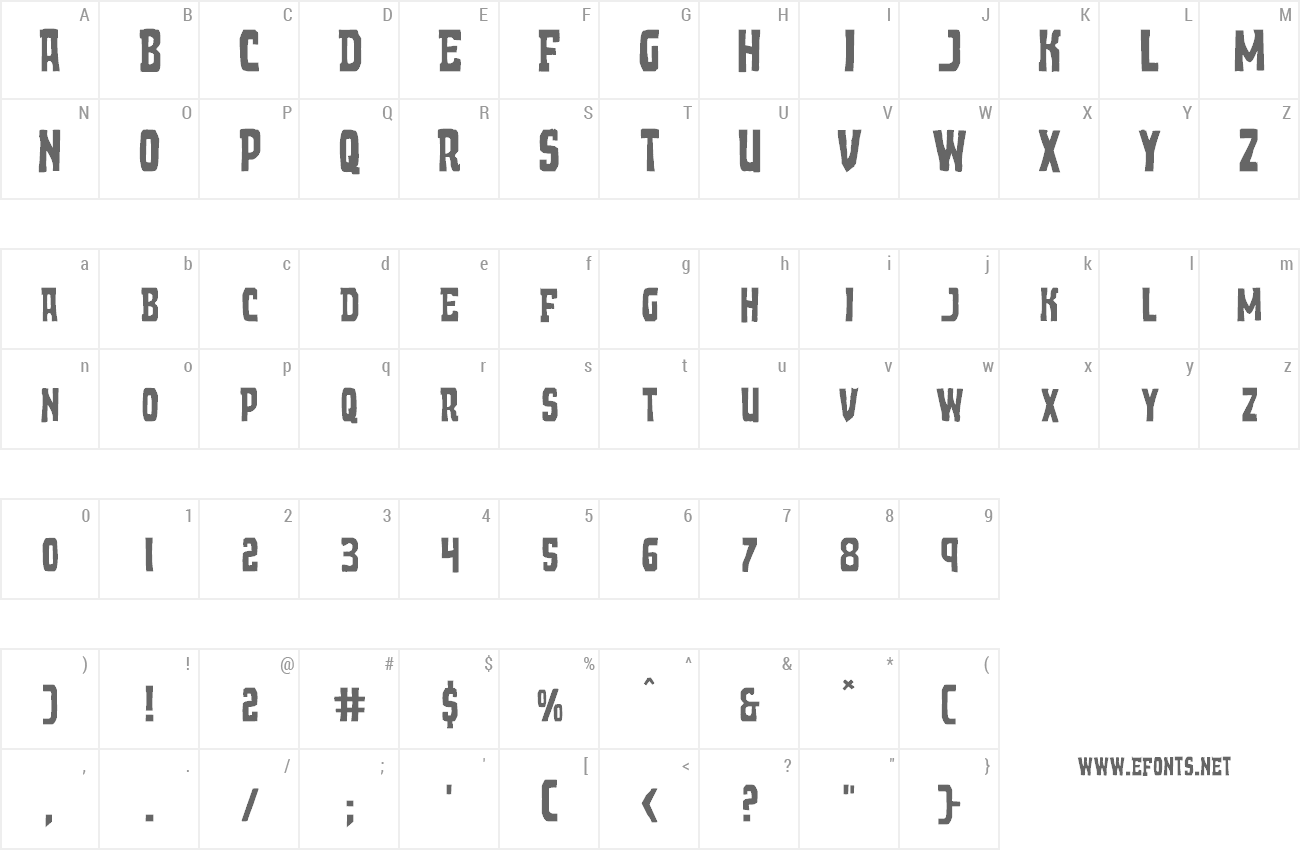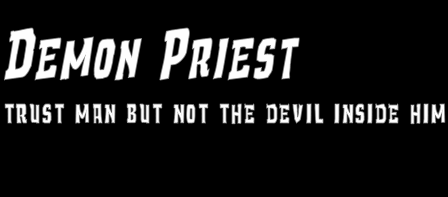
Preview and download Demon Priest Font. Created by Iconian Fonts in Fancy Horror styles with Donationware license.
Demon Priest is a font dedicated insppired by the clergy of the Darkside! Each version comes with a complete Latin character set and the Euro. For information on commercial usage, please visit www.iconian.com/commercial.html |